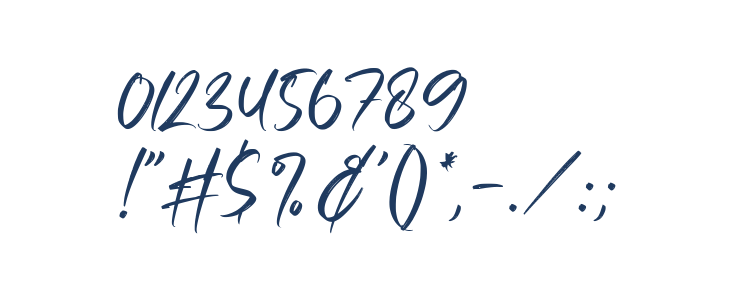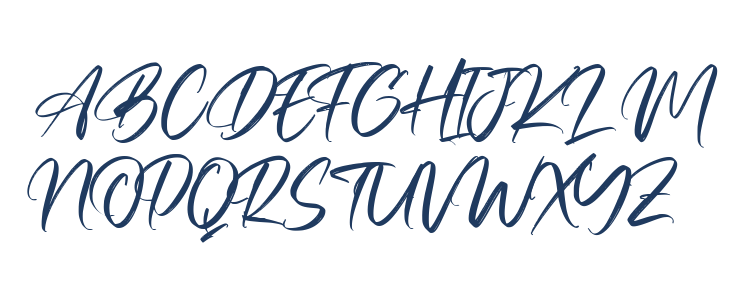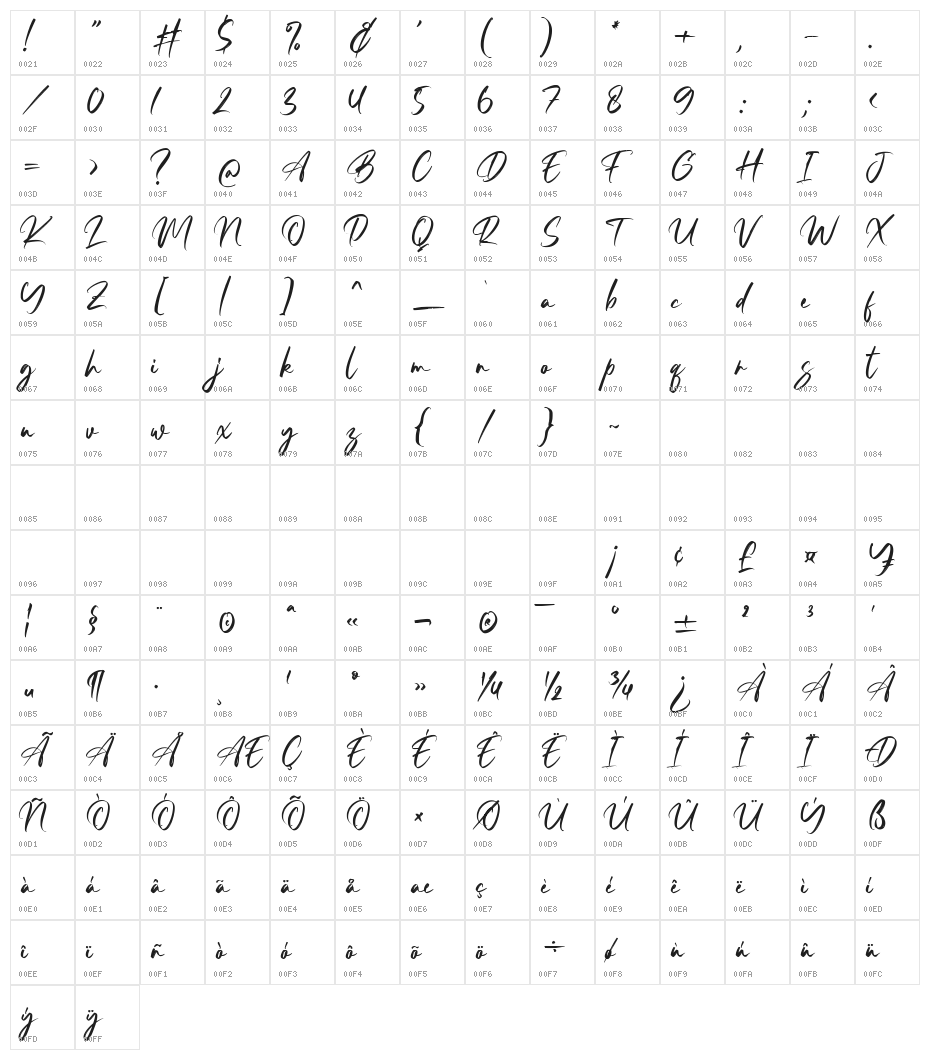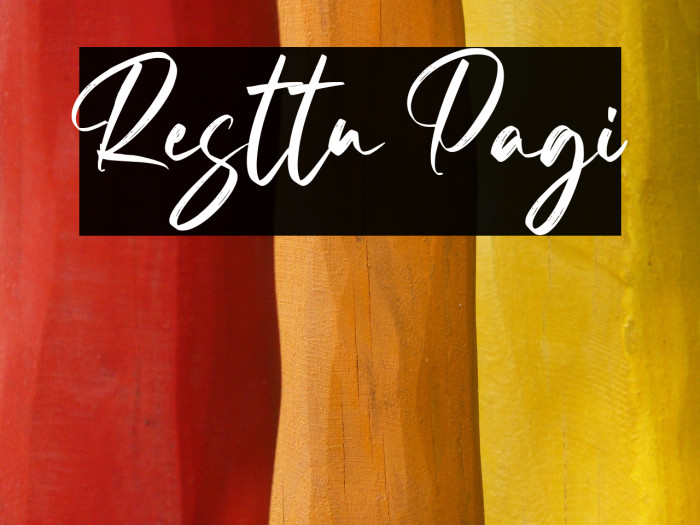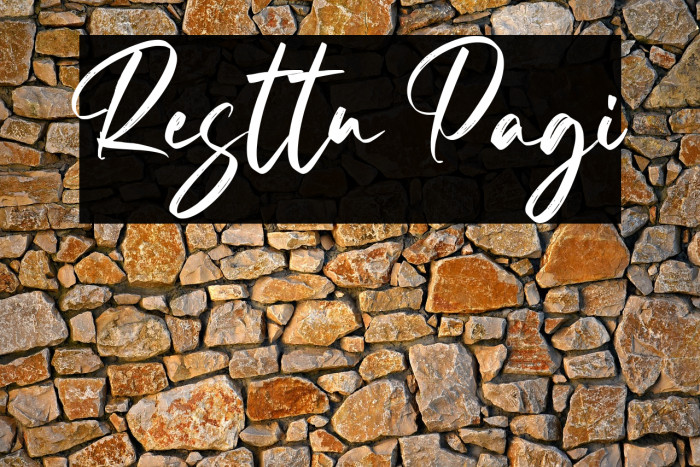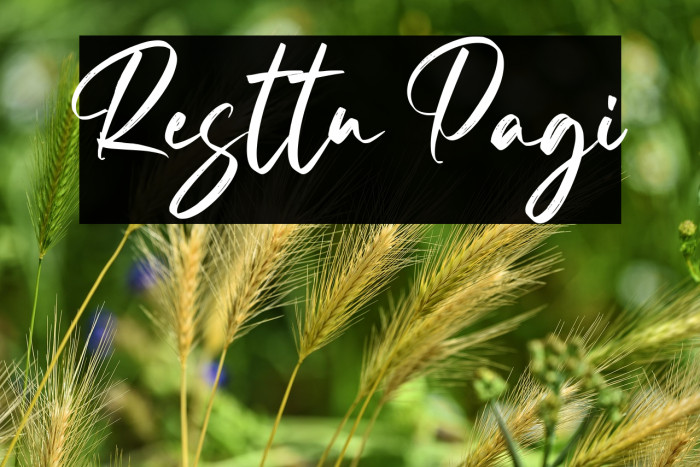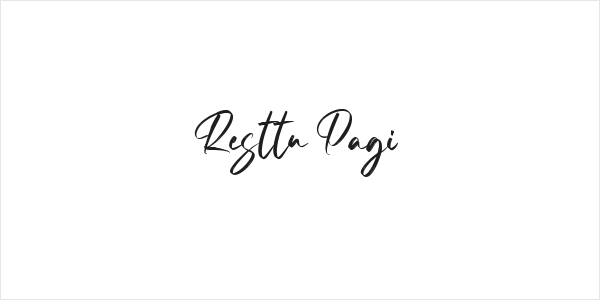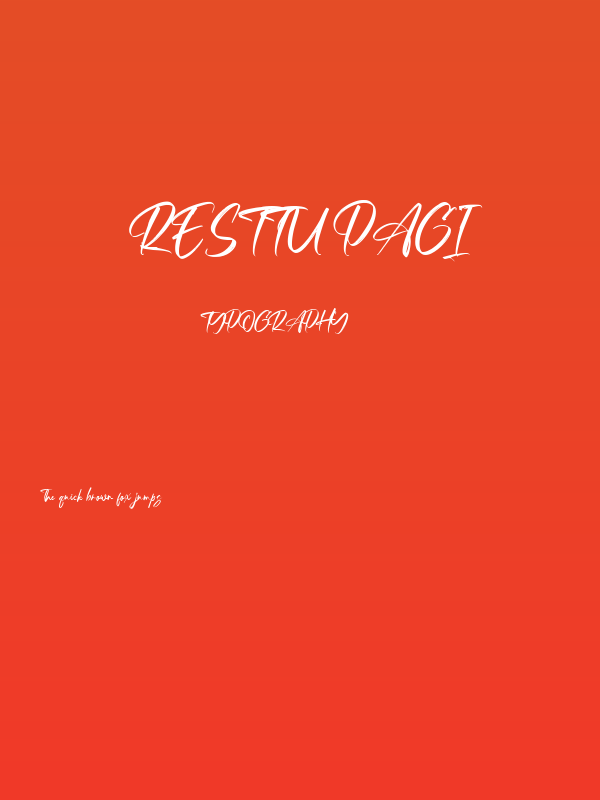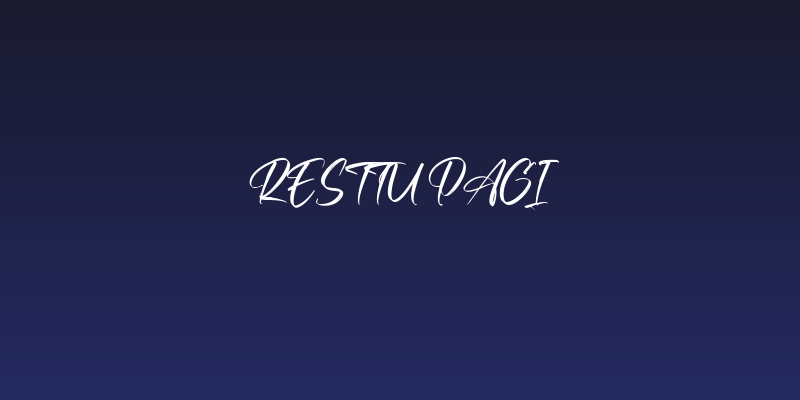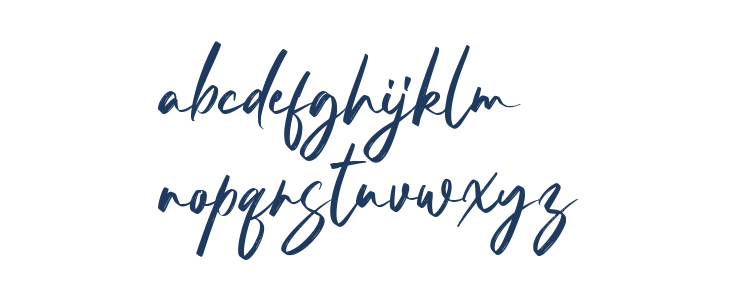
Resttu Pagi Font
Resttu Pagi Description
A dynamic, brush-style script font with fluid, expressive strokes and a handwritten appearance. The characters feature varying thickness, with high contrast between thick and thin lines, and a natural, casual flow. The uppercase and lowercase letters are highly stylized, with some exaggerated ascenders and descenders, and the numerals and symbols maintain the same energetic style.
| Overall Style | Decorative, Handwritten, Modern |
| Use Case | Logos, Headlines, Invitations, Posters |
| Proposed Projects | Invitations, greeting cards, branding, posters, social media graphics, artistic logos. |